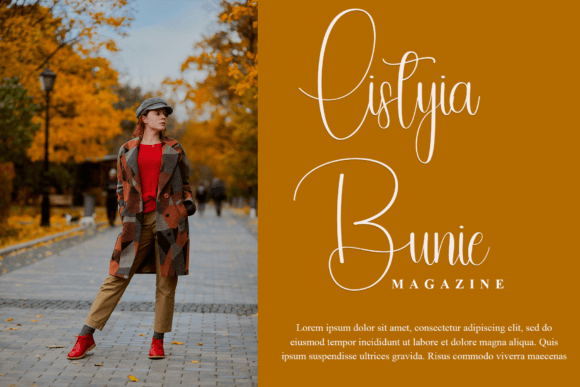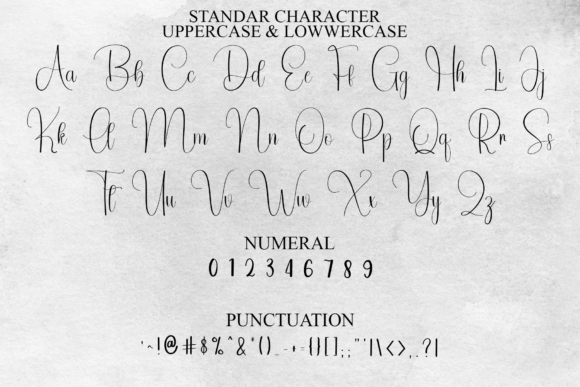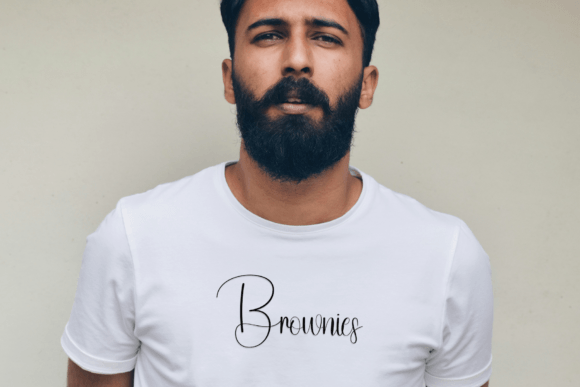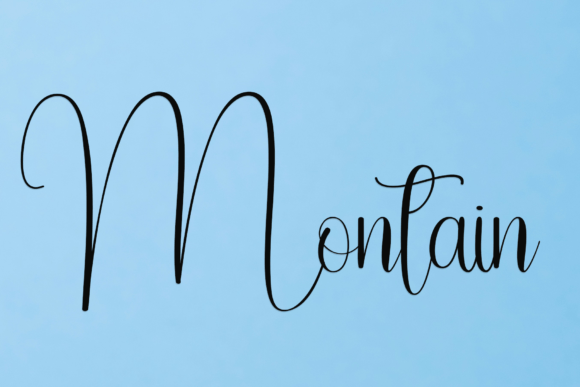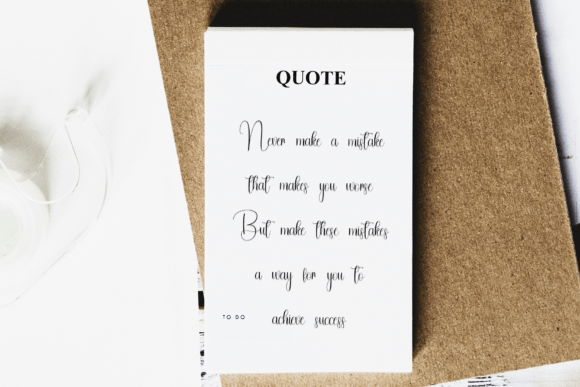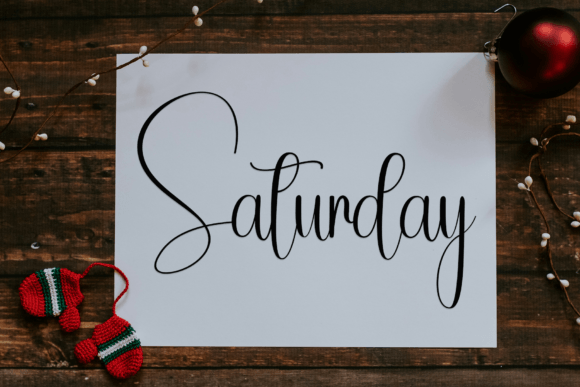
Introduction to Beauty Handwriten Font
Beauty Handwriten is a beautiful and refined handwritten font.
It has a classy, elegant, and modern look that can be used for logos, branding, invitations, stationery, wedding designs, social media posts, and much more This font is PUA encoded which means you can access all of the amazing glyphs and ligatures with ease.